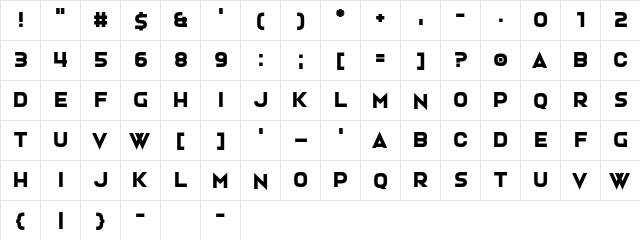
Hardigan Regular
| Designer | Allison James |
Design Context for Hardigan Typeface
Hardigan takes a measured approach to typography — its balanced proportions and neutral character make it a reliable workhorse for both digital and print work.